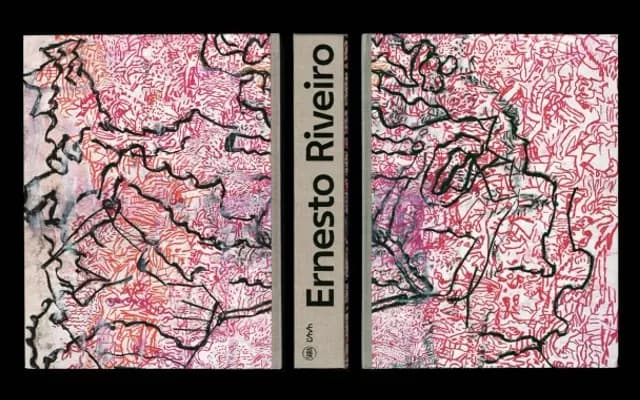
Eddi Grotesk
b•v-h type · André Baldinger & Toan Vu-Huu · 2025
A geometric-humanist grotesque by André Baldinger and Toan Vu-Huu, originally developed for the visual identity of a Swiss art school and released as a standalone variant of the Eddi family.
Developed from the Eddi typeface commissioned for ÉDHÉA, the Valais School of Art in Switzerland, Eddi Grotesk is a reinterpretation that pulls more explicitly from early sans-serif historical references while retaining the core formal vocabulary of its sibling. Four weights from Light to Heavy, each with an italic, cover a broad range of text and display applications. With 827 glyphs per style and extensive Latin language support, the family is built for serious typographic work across identity and editorial contexts.
The foundry describes it as a geometric-humanist linear grotesque, drawing on early historically rooted sans-serif aesthetics with careful attention to stroke endings, junctions and curvature balance.